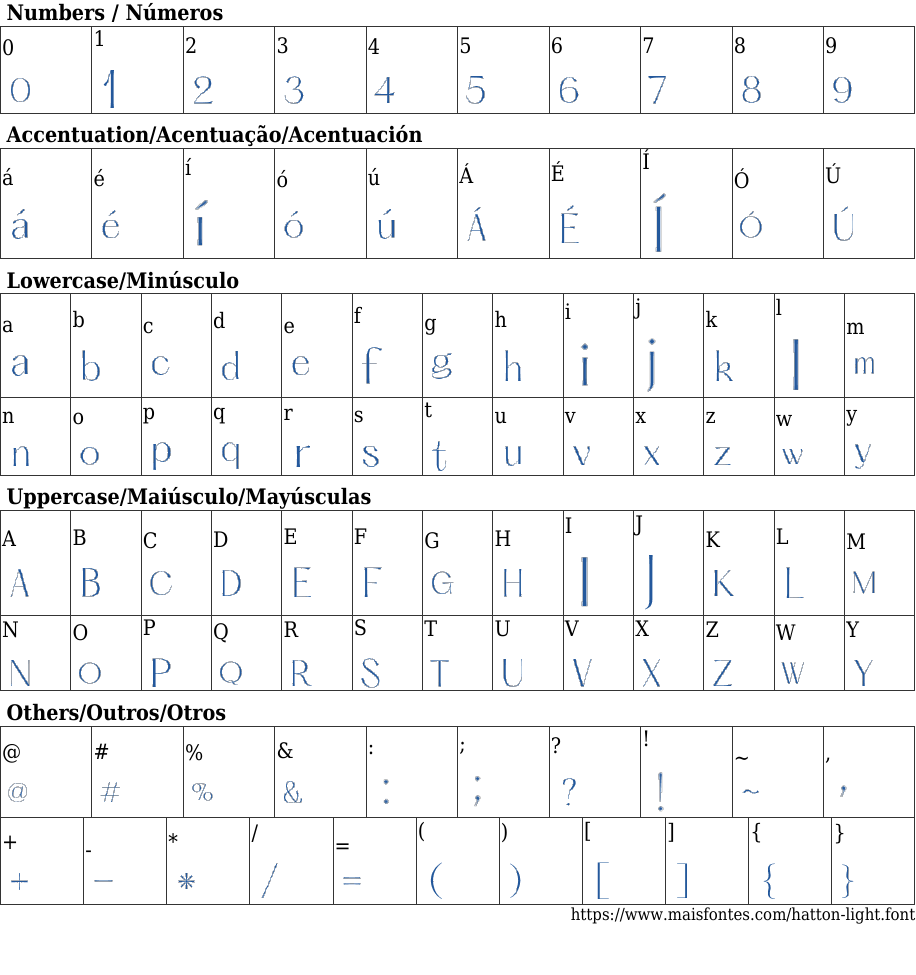
Hatton Light Font - Hatton is a free typeface homage to the history of the london district, hatton garden. Distilling the character and nuances of local street signage,. Having a font with something impact, but with a visual elegance, will make your art rise to the podium. Made from font designer named pangram pangram.
Hatton is a free typeface homage to the history of the london district, hatton garden. Made from font designer named pangram pangram. Having a font with something impact, but with a visual elegance, will make your art rise to the podium. Distilling the character and nuances of local street signage,.
Hatton is a free typeface homage to the history of the london district, hatton garden. Distilling the character and nuances of local street signage,. Made from font designer named pangram pangram. Having a font with something impact, but with a visual elegance, will make your art rise to the podium.
Having a font with something impact, but with a visual elegance, will make your art rise to the podium. Distilling the character and nuances of local street signage,. Made from font designer named pangram pangram. Hatton is a free typeface homage to the history of the london district, hatton garden.
Hatton is a free typeface homage to the history of the london district, hatton garden. Having a font with something impact, but with a visual elegance, will make your art rise to the podium. Made from font designer named pangram pangram. Distilling the character and nuances of local street signage,.
Distilling the character and nuances of local street signage,. Made from font designer named pangram pangram. Having a font with something impact, but with a visual elegance, will make your art rise to the podium. Hatton is a free typeface homage to the history of the london district, hatton garden.
Made from font designer named pangram pangram. Having a font with something impact, but with a visual elegance, will make your art rise to the podium. Distilling the character and nuances of local street signage,. Hatton is a free typeface homage to the history of the london district, hatton garden.
Having a font with something impact, but with a visual elegance, will make your art rise to the podium. Made from font designer named pangram pangram. Distilling the character and nuances of local street signage,. Hatton is a free typeface homage to the history of the london district, hatton garden.
Hatton is a free typeface homage to the history of the london district, hatton garden. Having a font with something impact, but with a visual elegance, will make your art rise to the podium. Distilling the character and nuances of local street signage,. Made from font designer named pangram pangram.
Having a font with something impact, but with a visual elegance, will make your art rise to the podium. Hatton is a free typeface homage to the history of the london district, hatton garden. Made from font designer named pangram pangram. Distilling the character and nuances of local street signage,.
Distilling the character and nuances of local street signage,. Hatton is a free typeface homage to the history of the london district, hatton garden. Having a font with something impact, but with a visual elegance, will make your art rise to the podium. Made from font designer named pangram pangram.
Having a font with something impact, but with a visual elegance, will make your art rise to the podium. Made from font designer named pangram pangram. Hatton is a free typeface homage to the history of the london district, hatton garden. Distilling the character and nuances of local street signage,.
Distilling the character and nuances of local street signage,. Made from font designer named pangram pangram. Having a font with something impact, but with a visual elegance, will make your art rise to the podium. Hatton is a free typeface homage to the history of the london district, hatton garden.
Distilling The Character And Nuances Of Local Street Signage,.
Having a font with something impact, but with a visual elegance, will make your art rise to the podium. Made from font designer named pangram pangram. Hatton is a free typeface homage to the history of the london district, hatton garden.